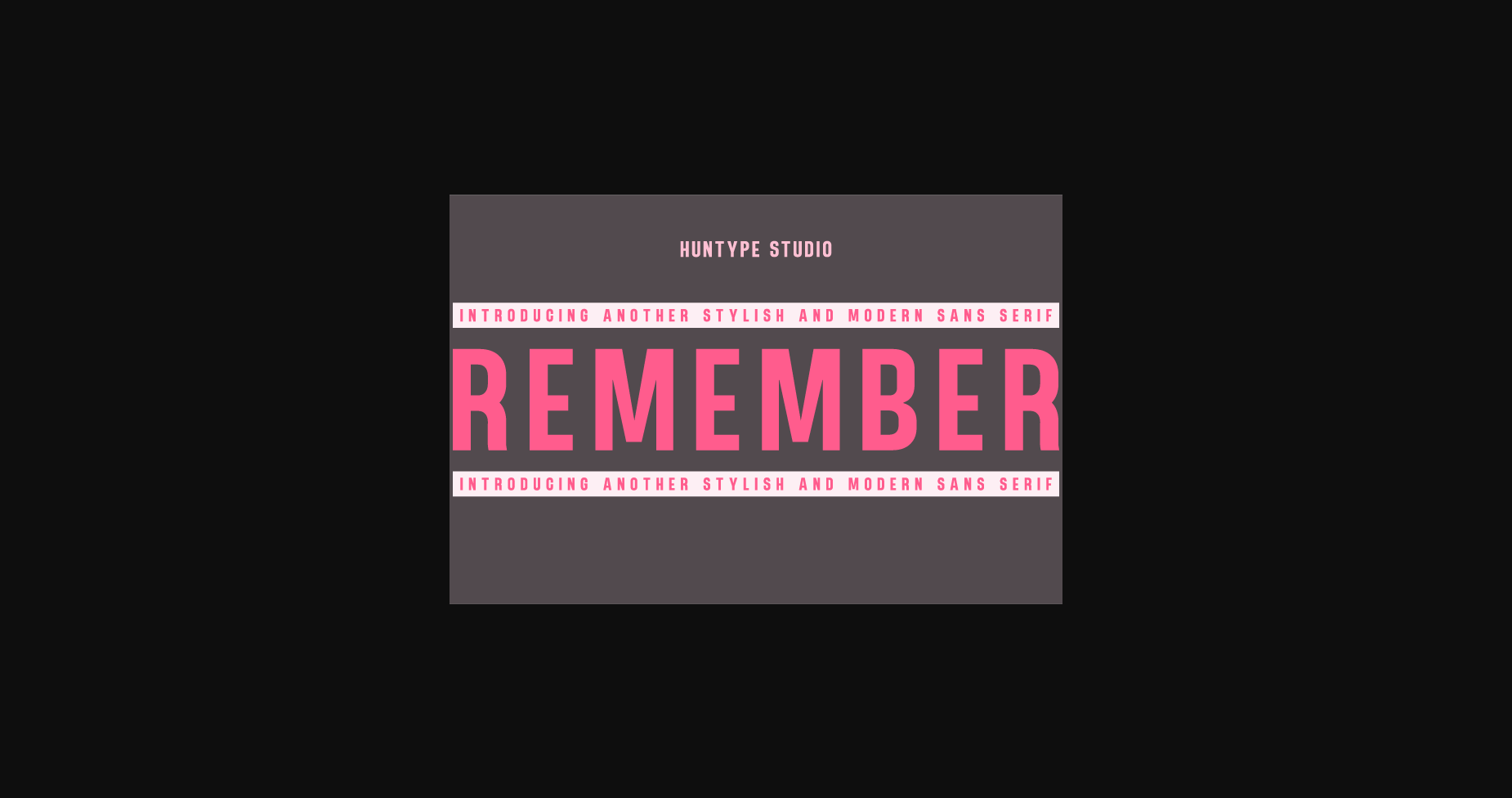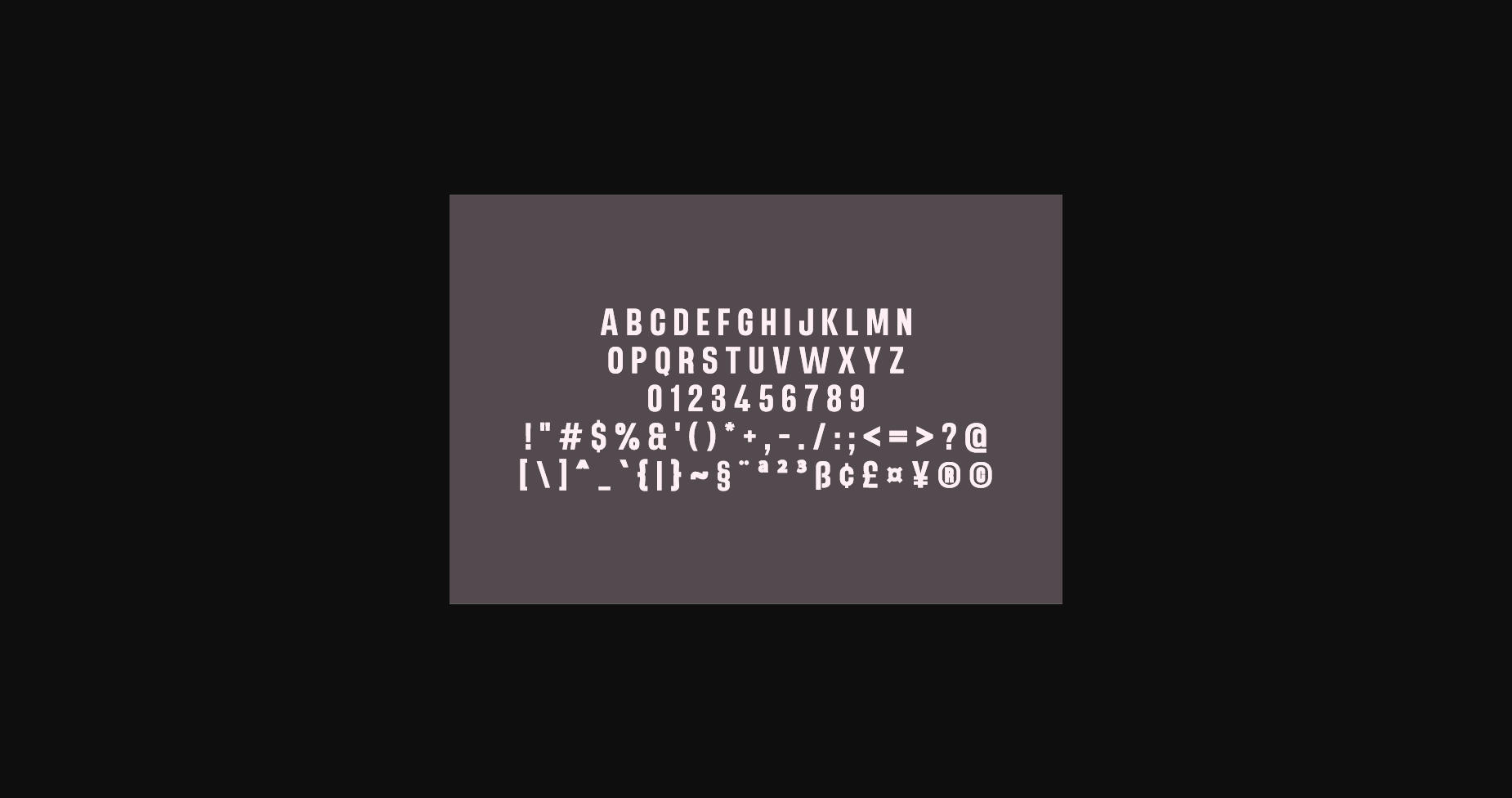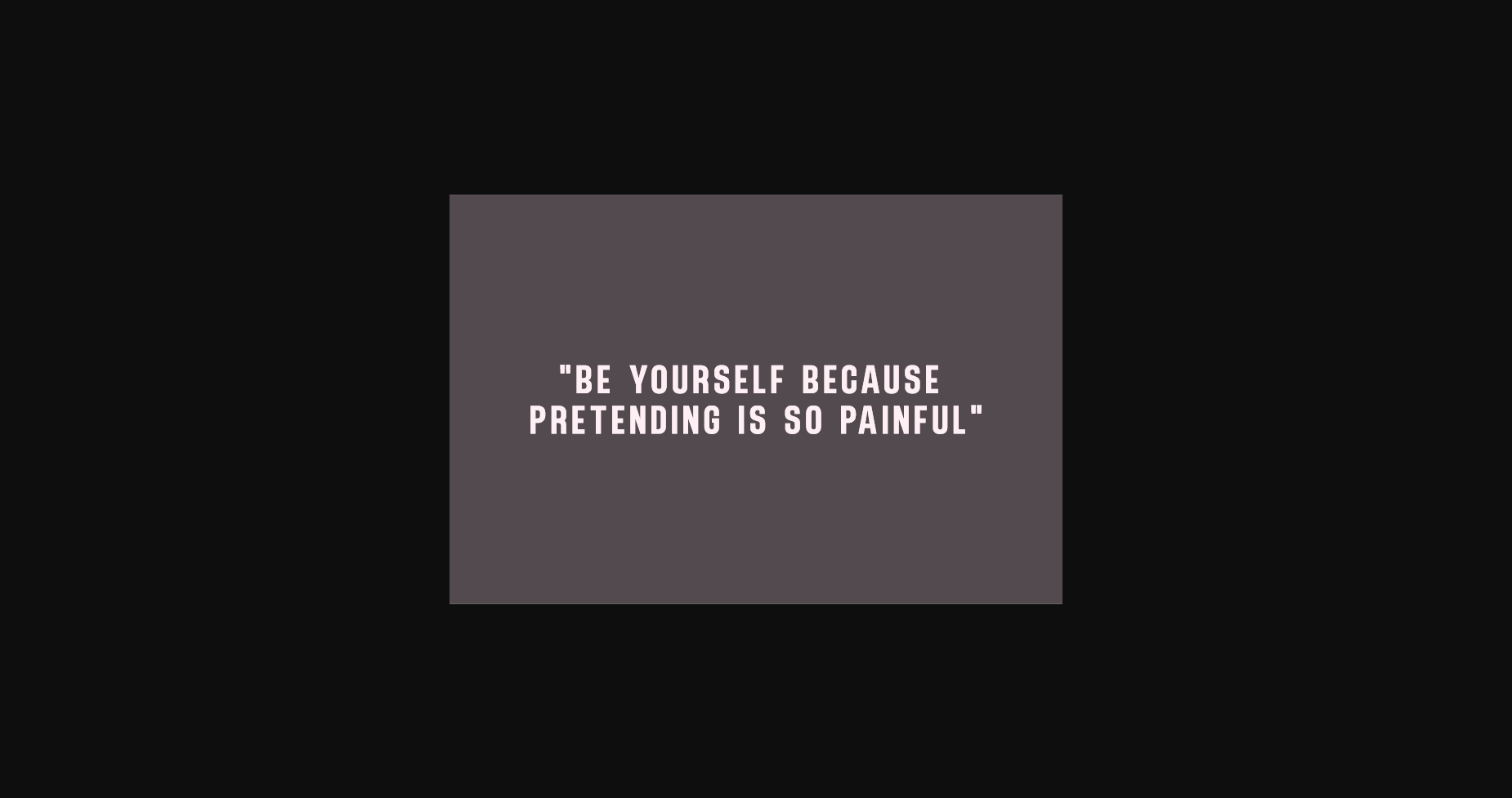
HomeSans Serif FontsRemember Font Sans Serif Fonts Remember Font FacebookXPinterestWhatsApp 1 of 5 ... Remember Font Poster 2... Remember Font Poster 3... Remember Font Poster 4... Remember Font Poster 5... About Remember Font Remember is a cool and neat sans serif font. Modern and classy, this font is suitable for a large variety of creative ideas. Add it confidently to your projects and you will love the results! DOWNLOAD NOW People also explored All Americans Font Awesome Font Heartline Font Arthines Font Daddy Day Font Sweetheart Script Usually Font Caerphilly Hello Winter Font 308 0 TagsRemember Font Previous articleMonopolize FontNext articleHilarious Font LEAVE A REPLY Cancel reply Comment: Please enter your comment! Name:* Please enter your name here Email:* You have entered an incorrect email address! Please enter your email address here Website: Save my name, email, and website in this browser for the next time I comment. Personal Use Free Quickline Personal Use Free Read more about this font Miracles Personal Use Free Read more about this font Mail Ray Stuff Personal Use Free Read more about this font Open Heart Personal Use Free Read more about this font BLOG Fonts That Capture the Spirit of New York City New York City is more than just a place—it’s an experience, a rhythm, a visual language... Transform Your Website: Elevate Your Typography with 7 Best Web Font Generators How to Cut Any Font on Cricut: Convert a Font to SVG (Free) Using Fonts in Digital Marketing: Tips to Strengthen Your Brand Identity